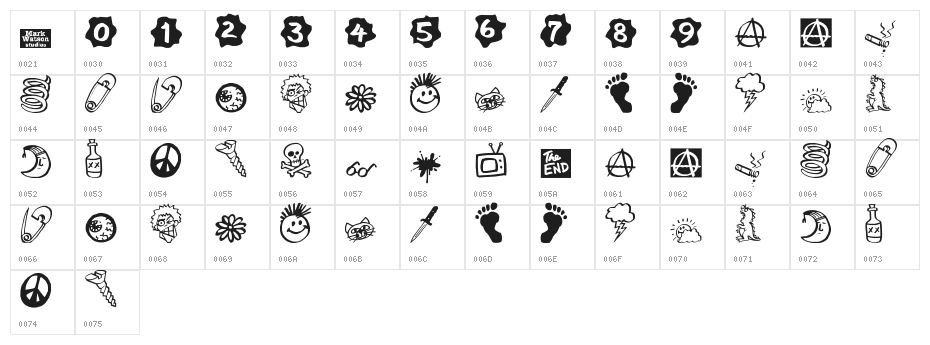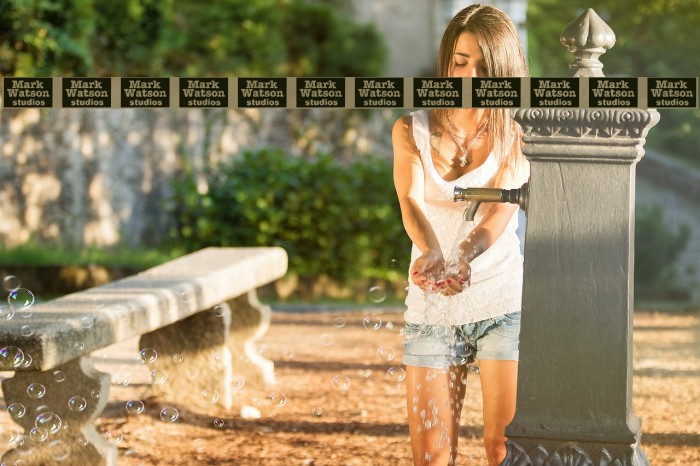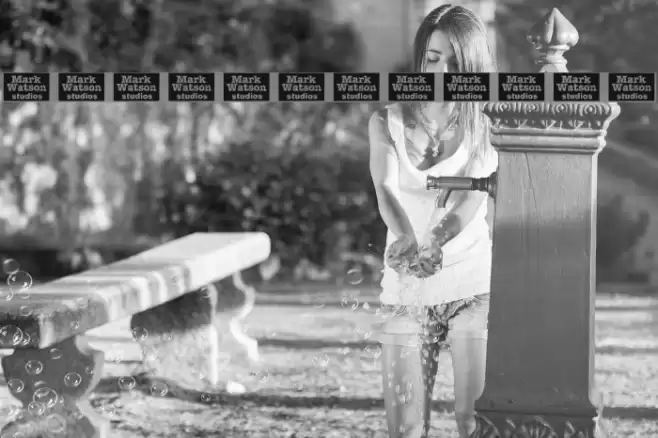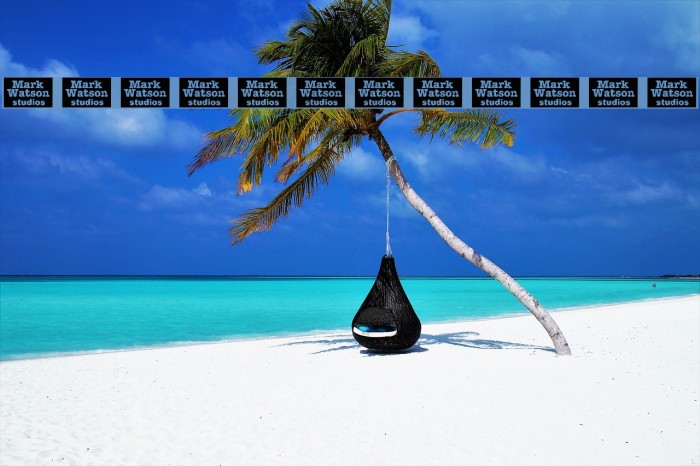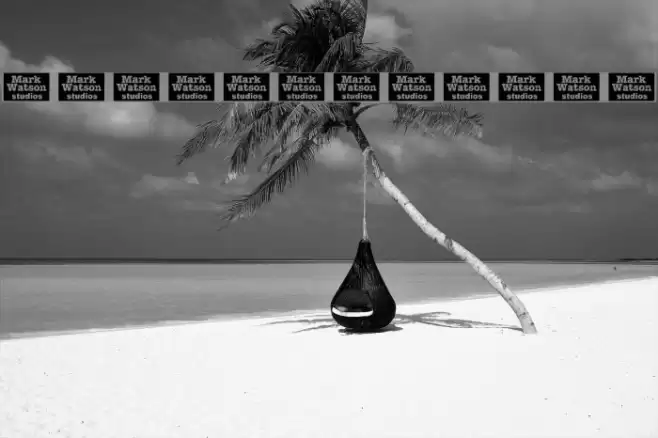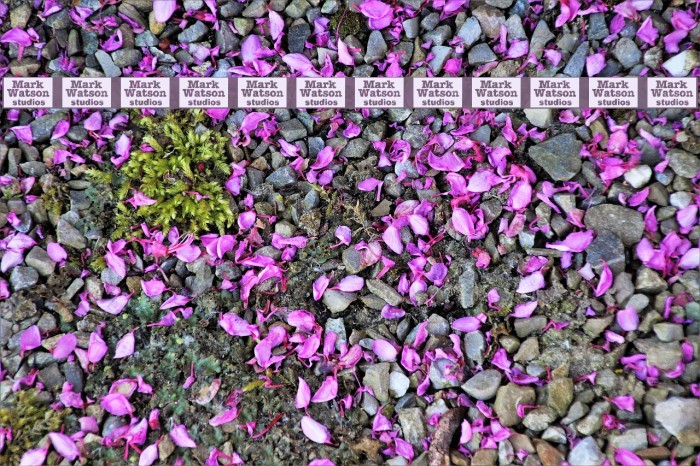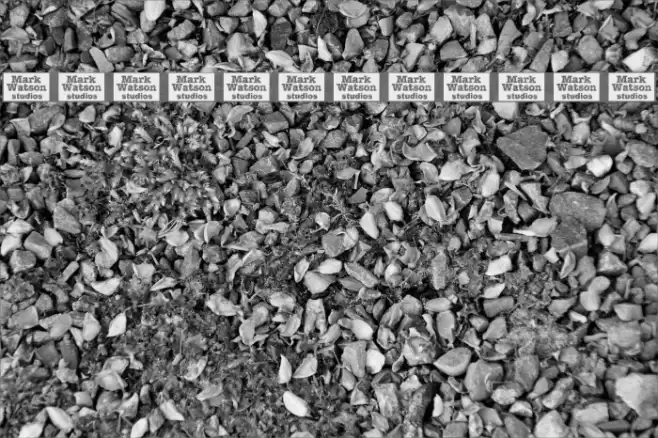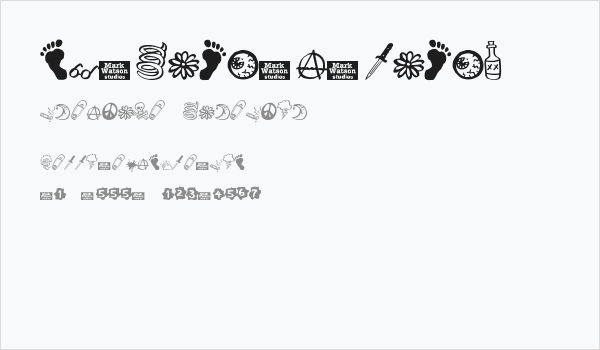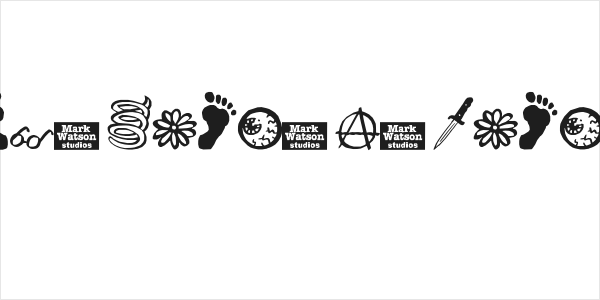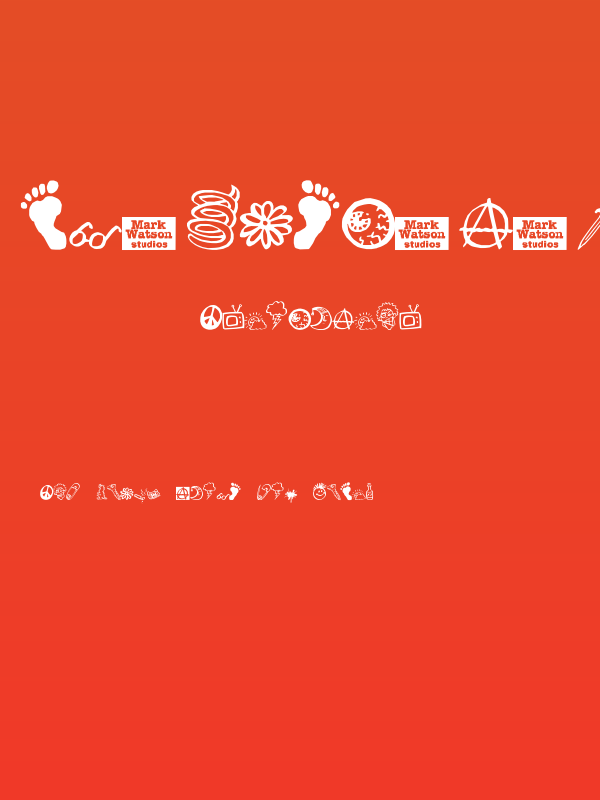
MW-Ding-A-Lings Font
MW-Ding-A-Lings Description
This font is a playful and decorative typeface that features a variety of whimsical and unique symbols. Each character is distinct, offering a creative flair that can add a fun and engaging element to any design. The symbols range from abstract shapes to recognizable icons, providing a versatile set of characters that can be used in various creative projects. The font's style is bold and eye-catching, making it suitable for designs that require a standout element. Its decorative nature makes it ideal for use in projects that aim to capture attention and convey a sense of creativity and fun.
Proposed ProjectsIdeal for greeting cards, children's books, playful branding, and creative posters.